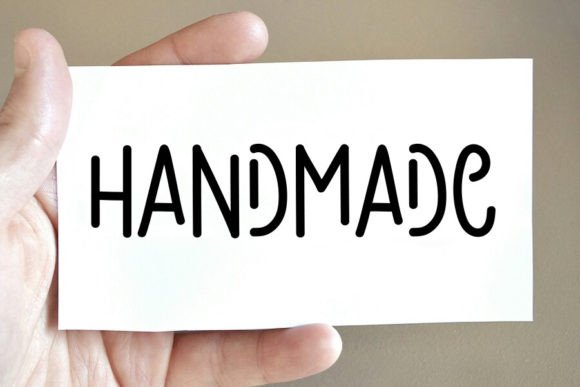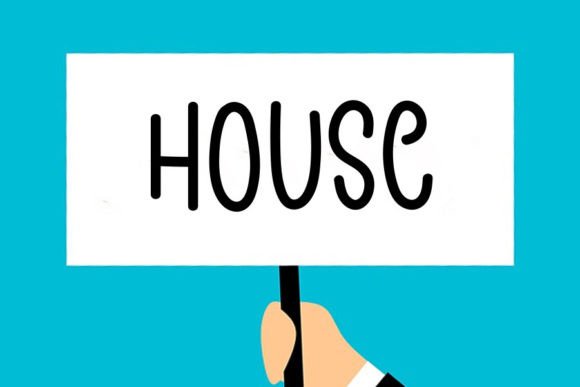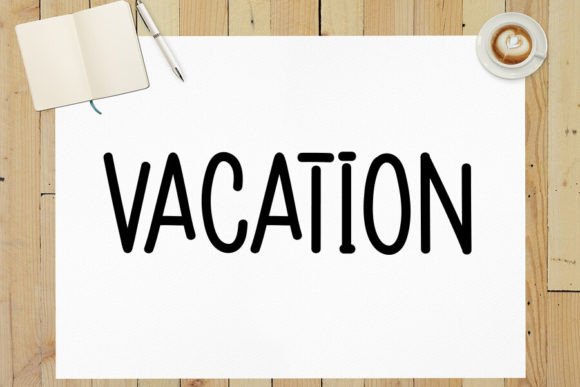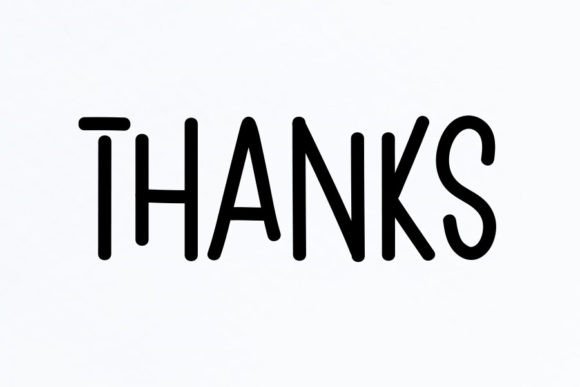
Introduction to Simple Notebook Font
Do you remember that magical moment when you first discovered a font that spoke to your creative soul? For many of us, it’s the spark that ignites a new project, a fresh idea, or a burst of inspiration. For designers, finding the right font can be the difference between a good design and a great one. And today, we’re excited to introduce you to one such gem: the Simple Notebook Font.
This charming, handwritten font is more than just a pretty face – it’s a versatile design resource that can elevate any creative project. Whether you’re working on a presentation, a greeting card, or a digital craft, Simple Notebook Font is the perfect companion to bring your ideas to life. And the best part? It’s available for free download, making it an instant favorite among designers and crafters alike.
With its high-quality design and transparent background, Simple Notebook Font is a valuable addition to any designer’s toolkit. So, get ready to fall in love with this lovable font and discover the endless possibilities it has to offer!
Key Features of Simple Notebook Font
- High-quality design ideal for creative projects, including journaling, scrapbooking, and digital art.
- Features a transparent background, allowing for easy layering and customization in design software.
- Includes a range of characters, including uppercase and lowercase letters, numbers, and symbols.
- Designed at a large size (2048×2048 pixels) for high-resolution printing and digital use.
- Unique, hand-drawn style that mimics traditional notebook font, adding a touch of authenticity to creative projects.
Honest Review: Simple Notebook Font
As a designer, I’m always on the lookout for high-quality fonts that can elevate my creative projects. Recently, I came across the Simple Notebook Font, and I must say, it’s been a game-changer.
- Unique and charming aesthetic that’s perfect for personal projects or designs with a vintage vibe
- Transparent background makes it easy to overlay on images or other design elements
- Works well in a variety of contexts, from invitations to digital art
While the Simple Notebook Font is a great addition to any designer’s toolkit, there are a few limitations to keep in mind:
- Not as versatile as some other fonts, may not be suitable for formal or professional projects
- Some characters may be missing or inconsistent, which can be frustrating to work with
Overall, I’m impressed with the Simple Notebook Font. Its unique aesthetic and transparent background make it a valuable design resource, even with a few limitations. If you’re looking for a high-quality font for your creative project, definitely give it a try.
How to Use Simple Notebook Font
The Simple Notebook Font is a versatile and high-quality design resource perfect for any creative project. Its unique aesthetic and transparent background make it ideal for a variety of applications.
For the best results, use the Simple Notebook Font in conjunction with a high-quality image or background. This will help to create a cohesive and visually appealing design.
The Simple Notebook Font is ideal for a variety of creative projects, including:
- Blogging and journaling
- Designing print materials, such as brochures and flyers
- Creating digital products, such as ebooks and courses
Alternatives to Simple Notebook Font
Open Sans is a high-quality, sans-serif font suitable for a wide range of creative projects. It’s a free download and an excellent design resource for designers. Open Sans features a clean and modern design, making it perfect for digital products and applications.
When to use: Open Sans is ideal for websites, mobile apps, and digital products that require a clean and modern look. It’s a great alternative to Simple Notebook Font when you need a more professional and sleek design.
Comparison: Open Sans has a more modern and sleek design compared to Simple Notebook Font, which has a more traditional and handwritten feel.
Q: Can I modify the Simple Notebook Font for my specific design needs?
Yes, the Simple Notebook Font is a fully editable font, allowing you to customize it to fit your design requirements. You can use font editing software like Adobe Illustrator or FontLab to modify the font’s characteristics, such as size, color, and style. However, please note that any modifications should be done in a way that maintains the original font’s integrity and high-quality design.